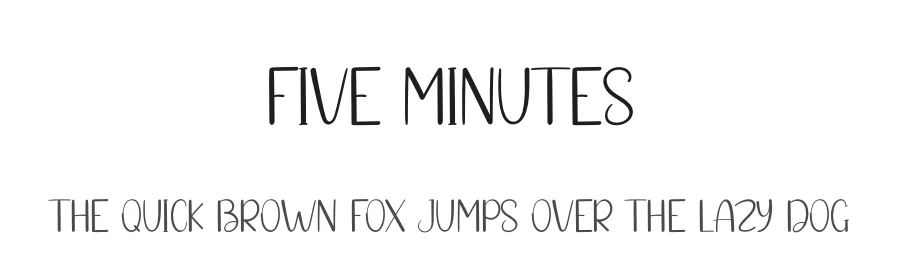
About Your Dream Font
Your Dream Specifications
| Font Family | Your Dream |
| Full Name | Your Dream |
| Glyph Count | 114 glyphs |
| PostScript Name | YourDreamRegular |
| Designer | Danar Nugroho |
Your Dream Font is a script font that shines as a display or heading face. Pair it with a clean sans-serif or serif font for body text β the contrast creates a clear hierarchy while the two styles stay balanced and easy to read.